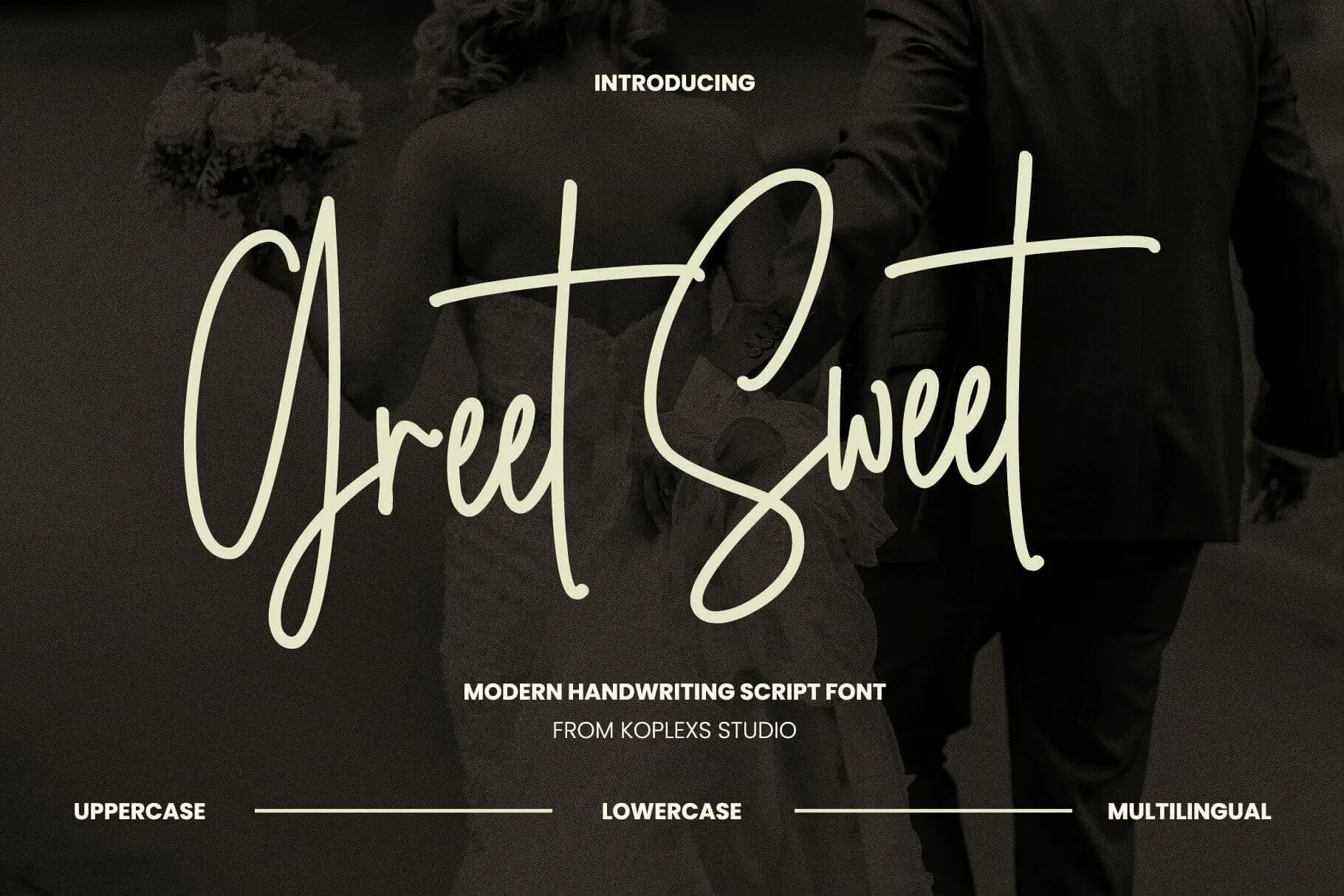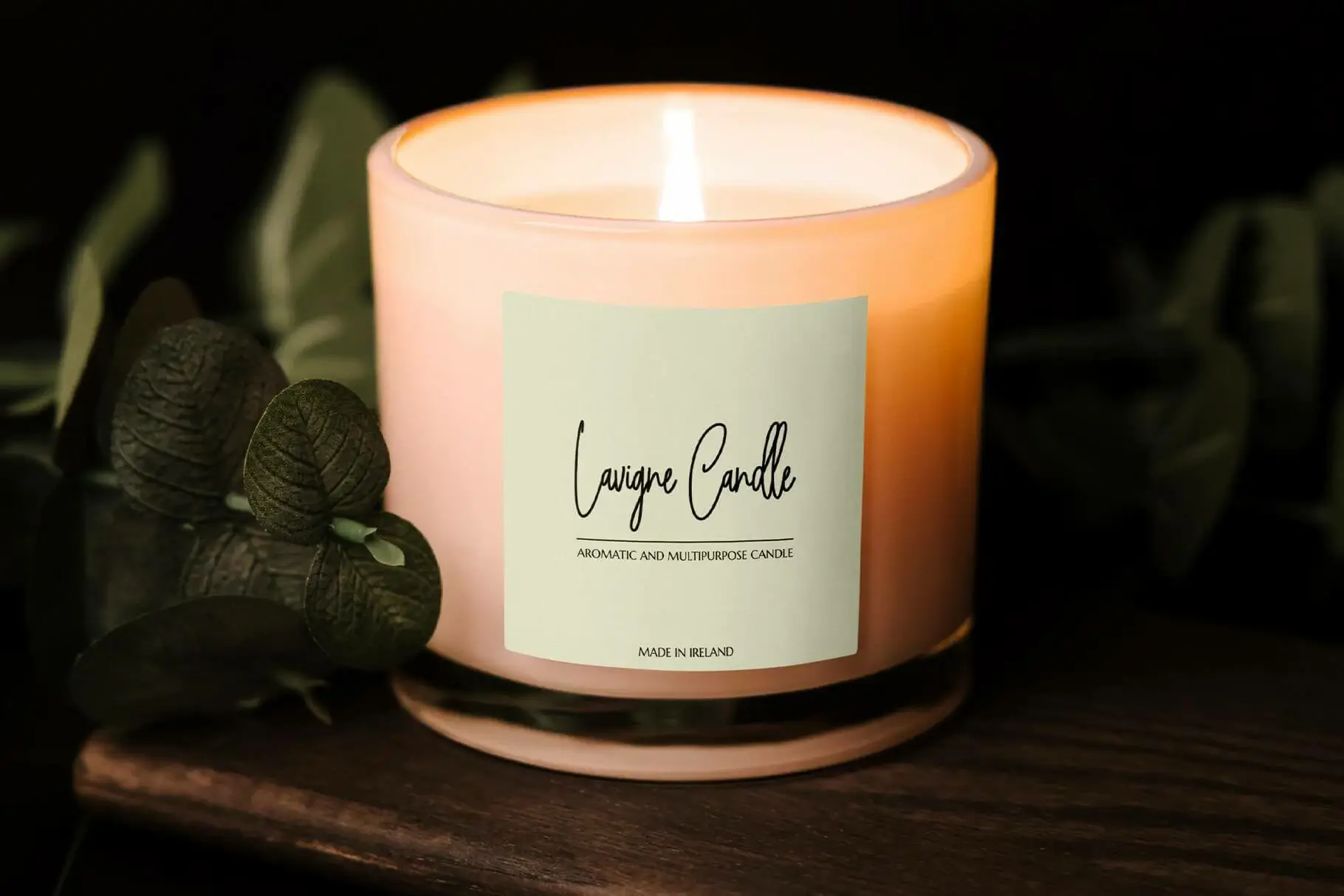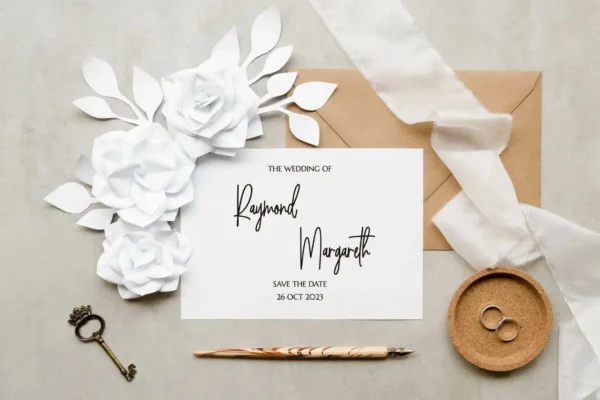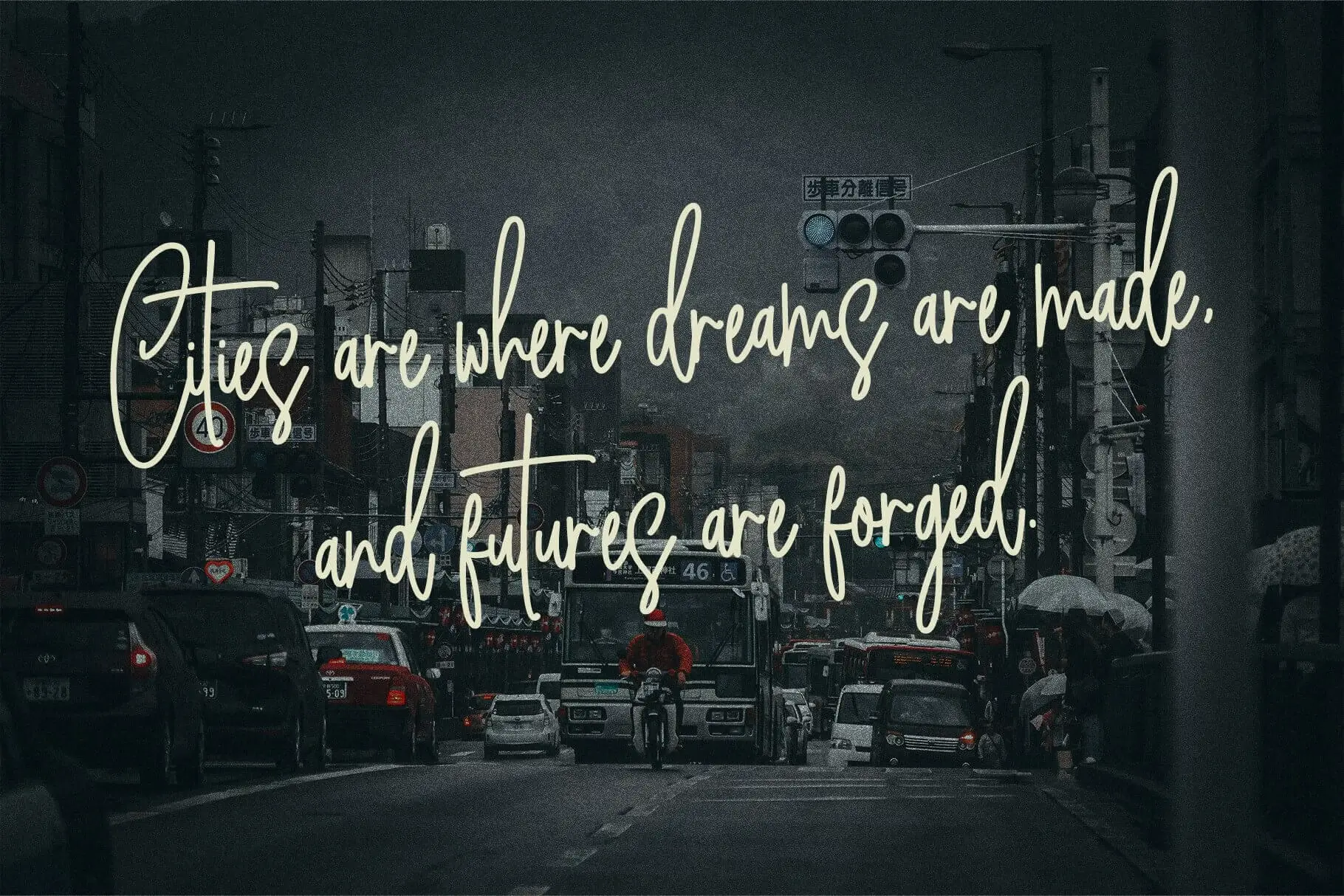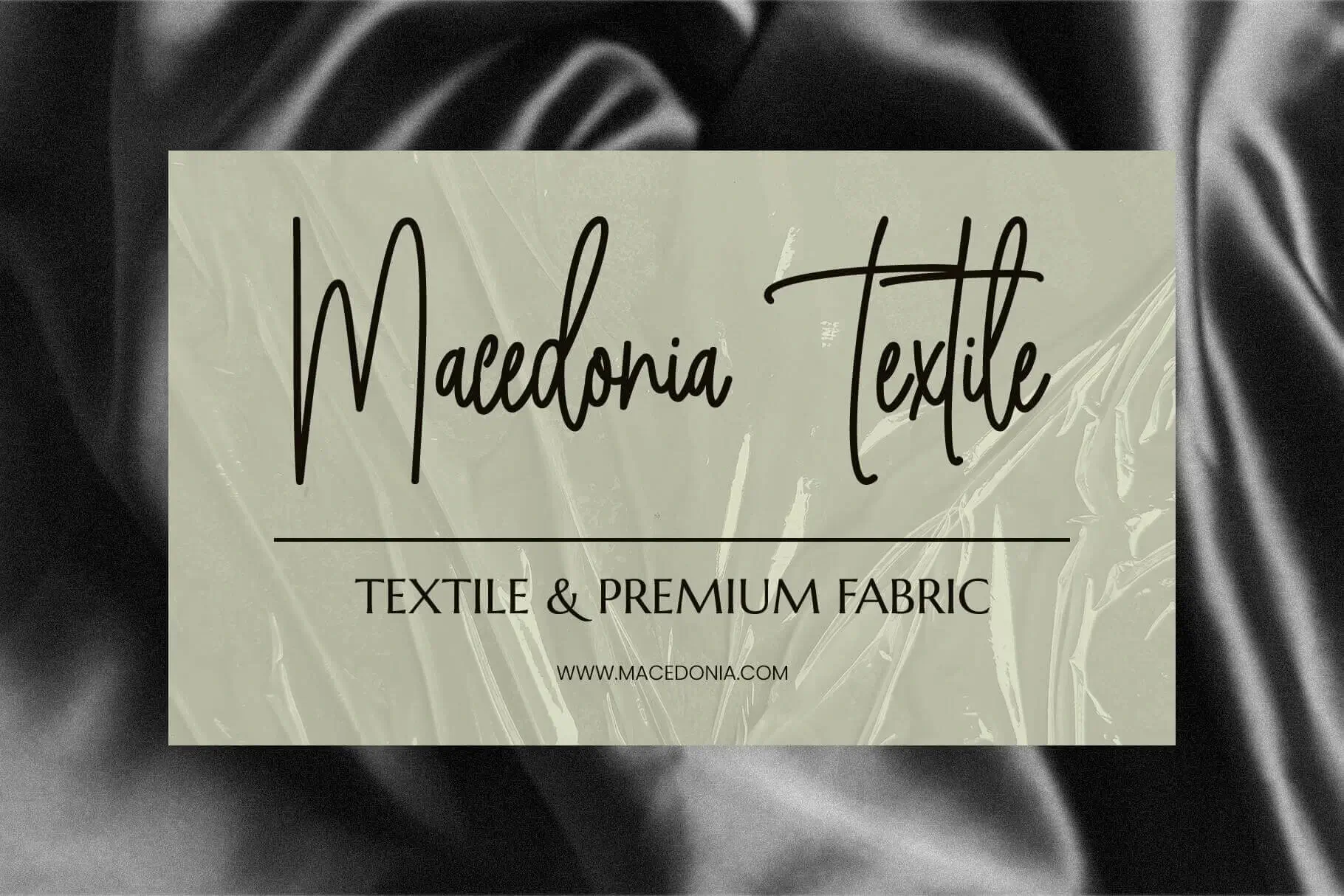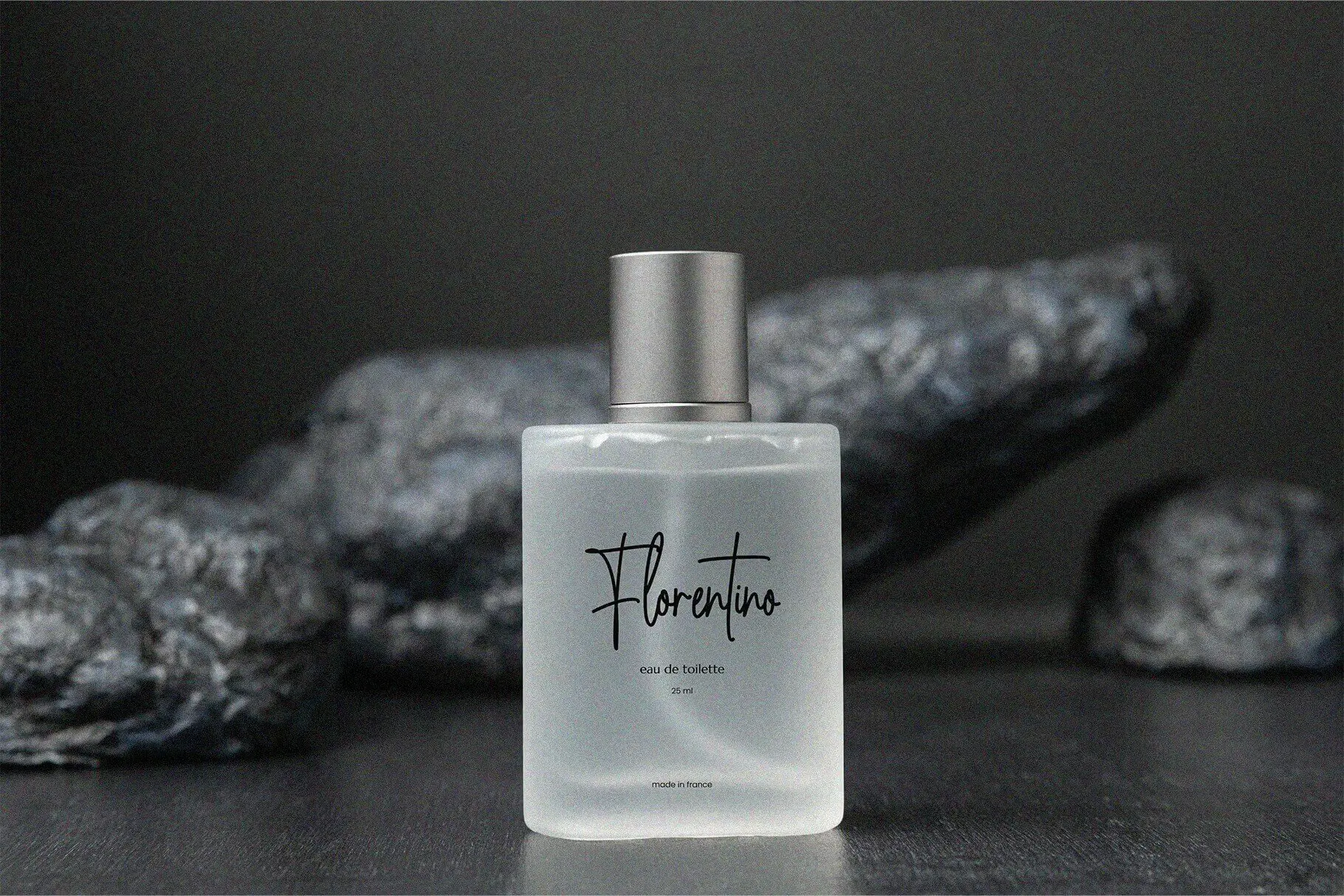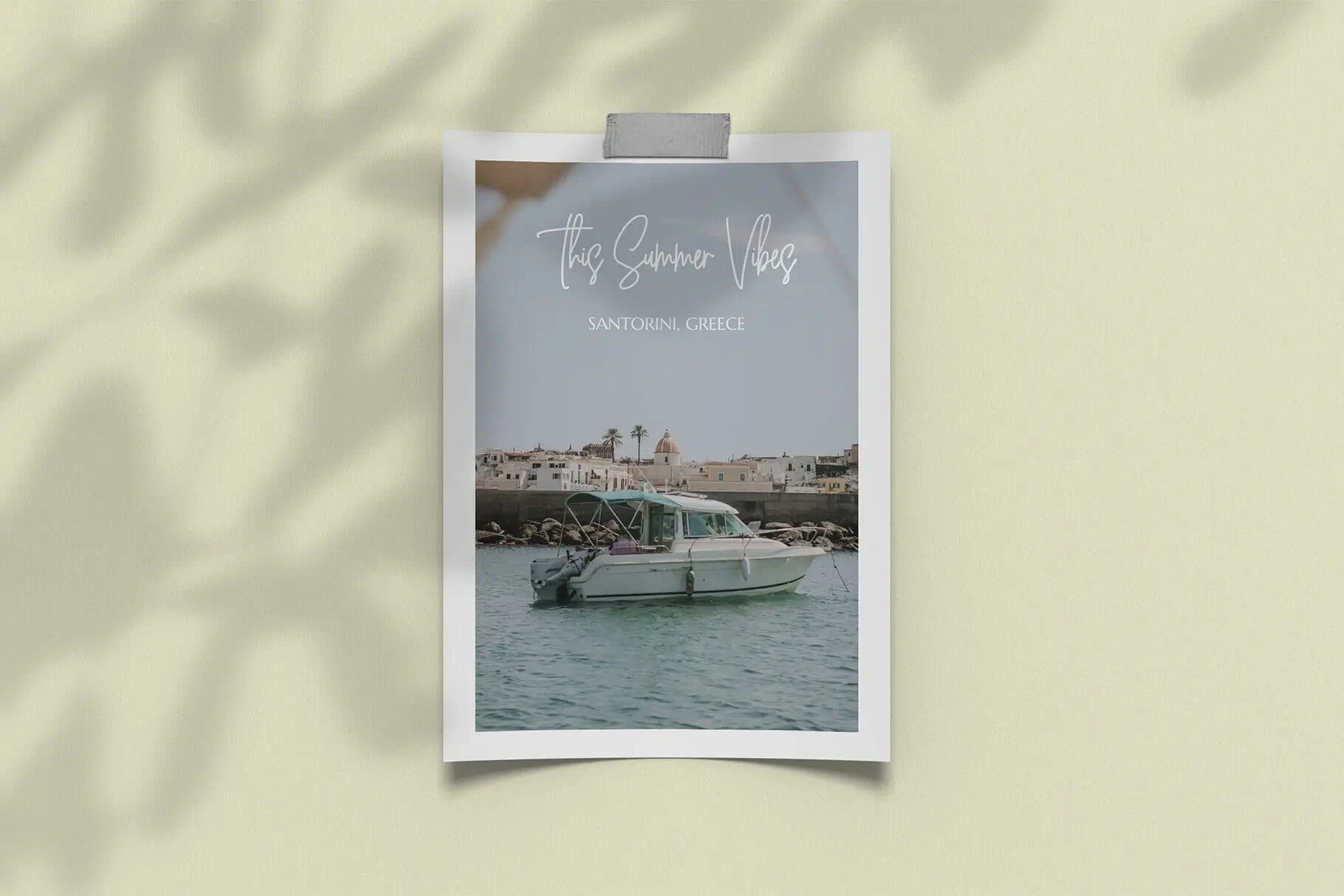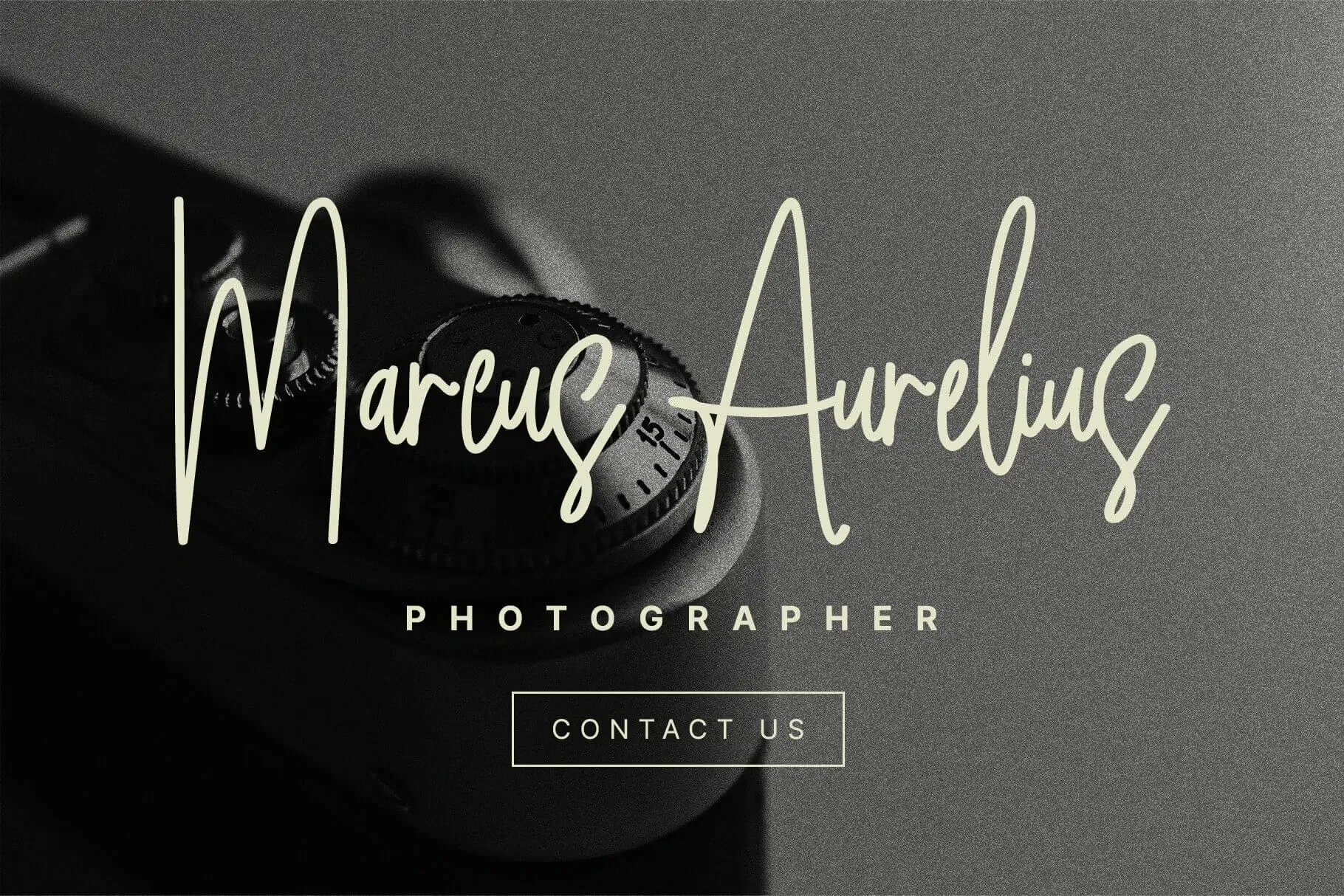
Greet Sweet Font
Greet Sweet Font is a charming modern handwriting script font that blends elegance with a personal touch. Perfect for invitations, branding, and creative projects, it offers a natural, fluid look with unique character. Ideal for adding warmth and sophistication to any design.
Greet Sweet Font: A Modern Handwriting Script Font
Introducing Greet Sweet Font, a captivating modern handwriting script font that seamlessly blends elegance with personality. Designed by Koplexs Studio, this font is perfect for those who seek a balance between sophistication and individuality in their typography.
Key Features:
• Handwriting Style : Greet Sweet embodies the fluidity and charm of natural handwriting, making it ideal for personal and professional projects alike.
• Modern Appeal : With its contemporary design, this font strikes a perfect balance between classic beauty and modern aesthetics, ensuring it remains relevant across various contexts.
• Versatility : Whether you’re designing wedding invitations, branding materials, or creative content, Greet Sweet adapts effortlessly to diverse applications.
• Multilingual Support : This font supports multiple languages, expanding its usability for international audiences and projects.
Design Details:
• Smooth Strokes : The smooth, flowing strokes of Greet Sweet create an inviting and approachable feel, reminiscent of a handwritten note from a close friend.
• Unique Characters : Each letter and numeral in Greet Sweet is meticulously crafted to maintain consistency while retaining a distinct, hand-drawn quality.
• Upper and Lowercase Options : Both uppercase and lowercase letters are included, offering flexibility in design and layout choices.
Ideal Uses:
1. Wedding Invitations : Capture the romance and intimacy of your special day with Greet Sweet’s elegant yet personal touch. Its graceful curves and fluid lines make it perfect for creating memorable invitations and save-the-date cards.
2. Branding and Logos : For businesses aiming to project a friendly, approachable image, Greet Sweet offers a unique handwriting style that can set your brand apart.
3. Creative Projects : Artists, designers, and content creators will appreciate how Greet Sweet enhances the visual appeal of their work, whether it’s for social media graphics, posters, or book covers.
4. Personal Notes and Letters : Use Greet Sweet to add a personal touch to handwritten notes, greeting cards, or any correspondence where a warm, handwritten feel is desired.
Visual Examples:
• Business Cards : Greet Sweet’s clean and sophisticated look makes it an excellent choice for business cards, conveying professionalism while maintaining a friendly tone.
• Packaging Design : Incorporate this font into product packaging to evoke a sense of craftsmanship and attention to detail.
• Typography Art : Explore the artistic potential of Greet Sweet by using it in typographic art pieces, where its fluidity and grace can truly shine.
Why Choose Greet Sweet?
• Uniqueness : Unlike many other script fonts, Greet Sweet stands out with its distinctive character and modern flair.
• Ease of Use : Its intuitive design ensures that users can easily incorporate it into their projects without compromising on aesthetic quality.
• Professional Quality : Developed by experienced designers at Koplexs Studio, this font meets high standards of quality and functionality.
Conclusion:
Greet Sweet is more than just a font; it’s a tool for expressing personality and warmth through typography. Whether you’re looking to elevate your personal projects or enhance your professional designs, this modern handwriting script font offers endless possibilities. Embrace the charm and sophistication of Greet Sweet to bring your ideas to life in a way that feels both authentic and stylish.